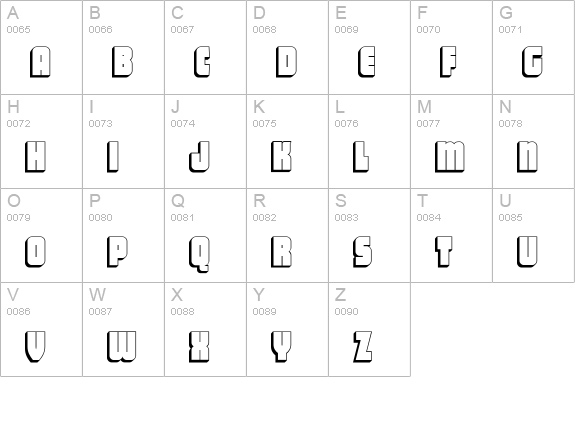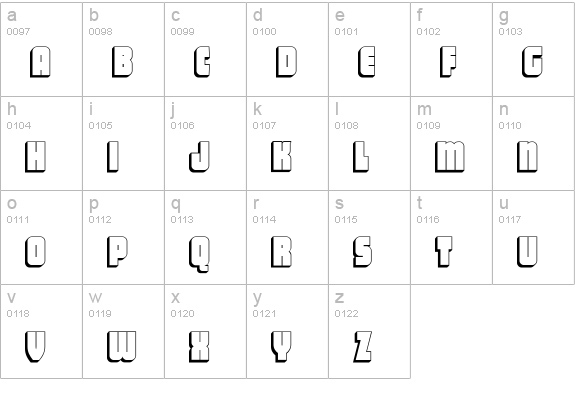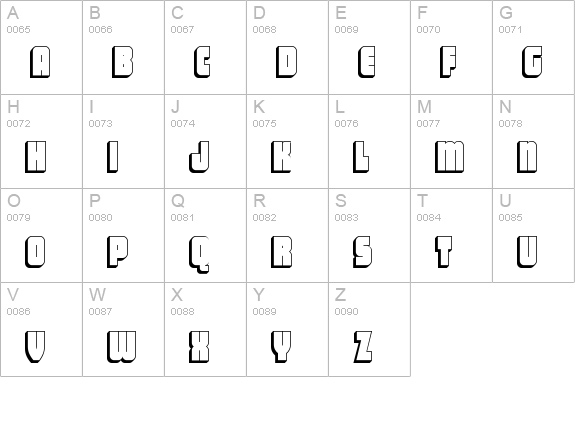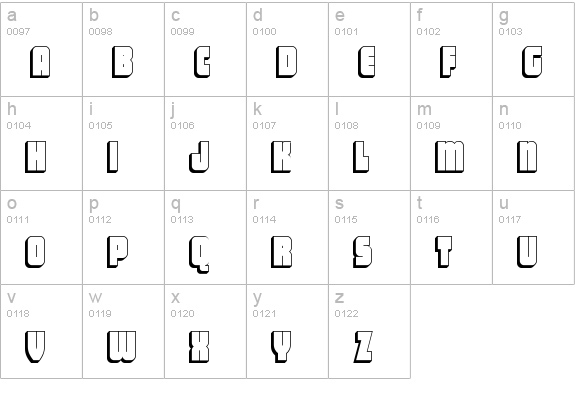
Vacation Postcard NF Font Details
Escape to a world of wanderlust and adventure with Vacation Postcard NF font. This delightful typography captures the spirit of carefree vacations and invites you to embark on a typographic journey like no other. With its charming and playful design, this font effortlessly transports you to exotic destinations, sandy beaches, and vibrant city streets. Vacation Postcard NF font exudes a sense of nostalgia, reminiscent of the postcards we used to send and receive, filled with memories and stories from faraway lands. Its carefully crafted letters, adorned with whimsical details, bring a touch of warmth and joy to your designs. What sets Vacation Postcard NF font apart is the fact that it is freely available to download at FontsMarket.com. That's right, you can bring this delightful font into your creative projects without any cost. Whether you're designing a travel blog, a vacation brochure, or a postcard to send to loved ones, this font will add a touch of charm and authenticity to your work. So, pack your bags and let Vacation Postcard NF font be your trusted companion on your creative journey. With its free availability and captivating design, it's the perfect font to bring your travel-inspired designs to life. Download it today from FontsMarket.com and let your imagination take flight. Bon voyage!